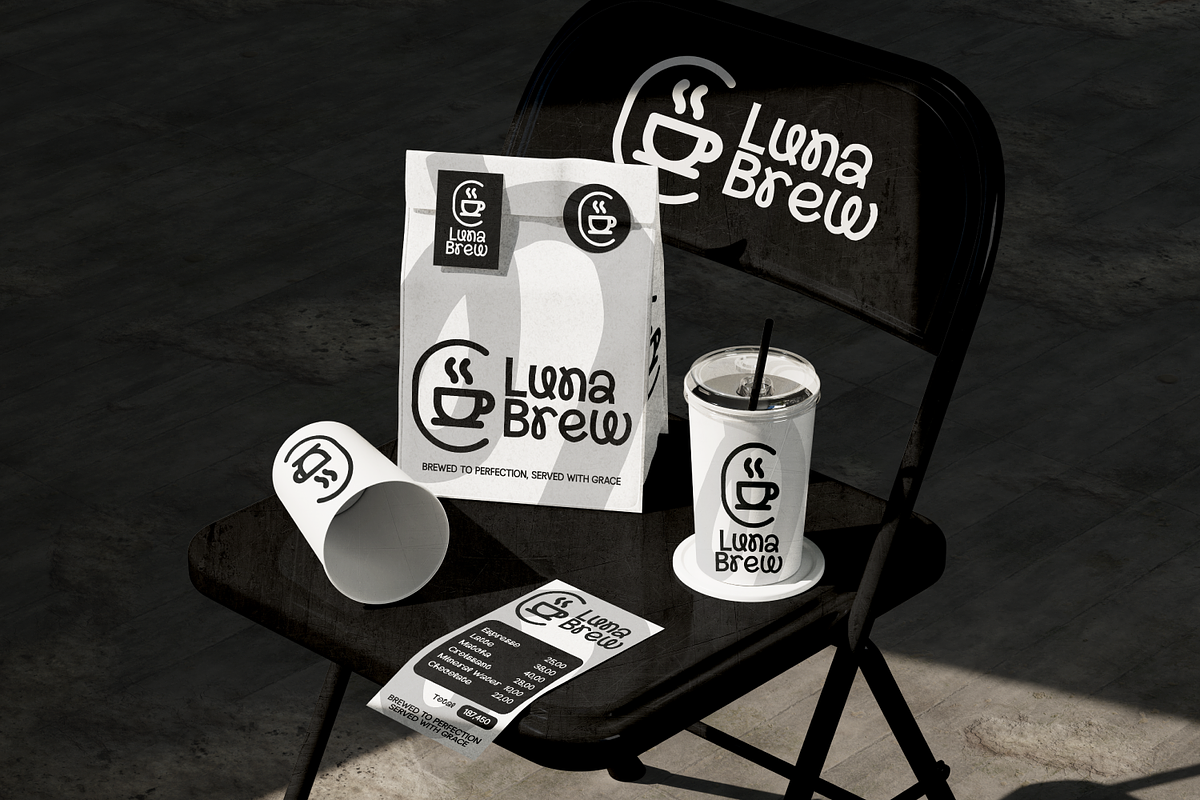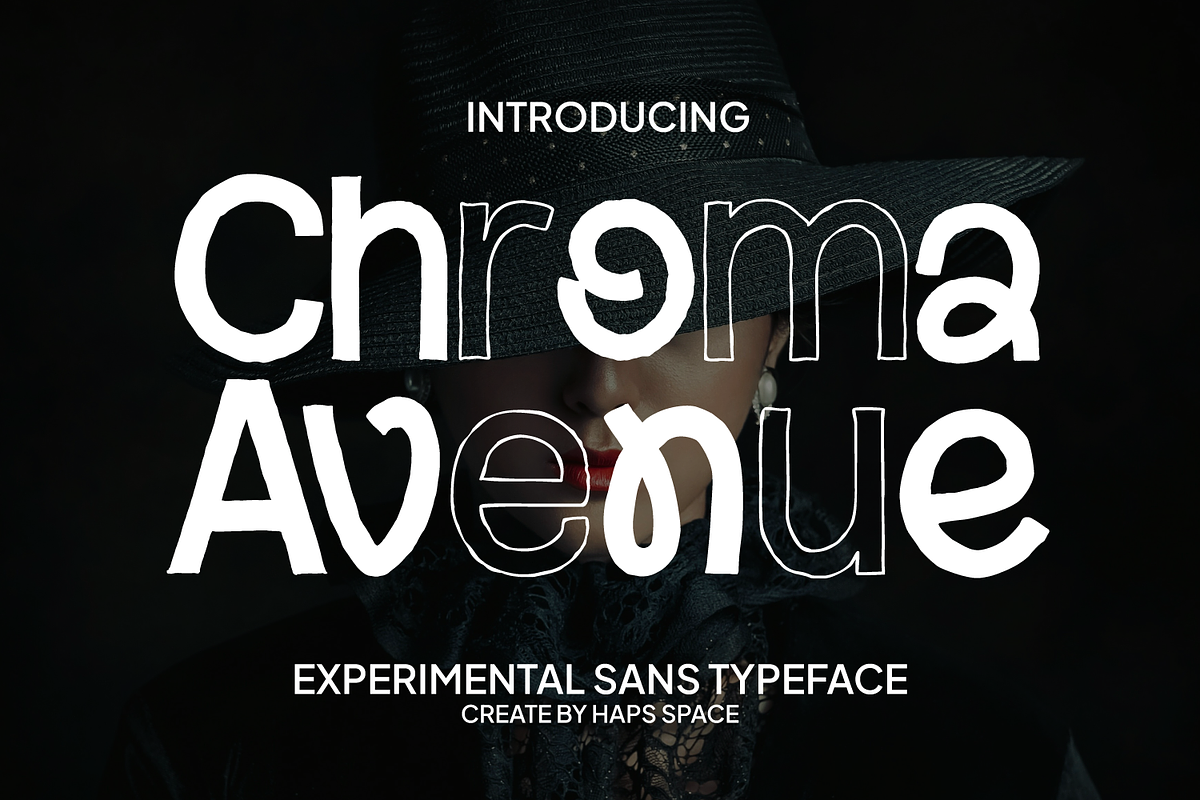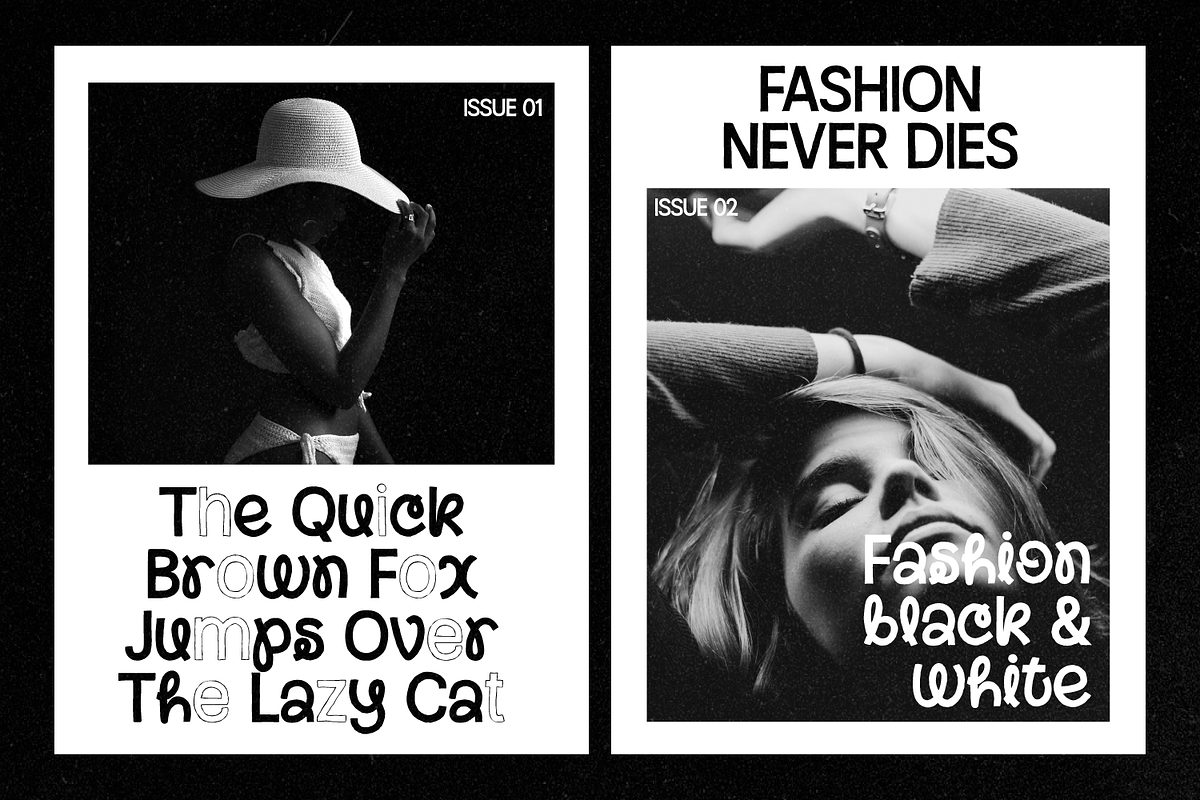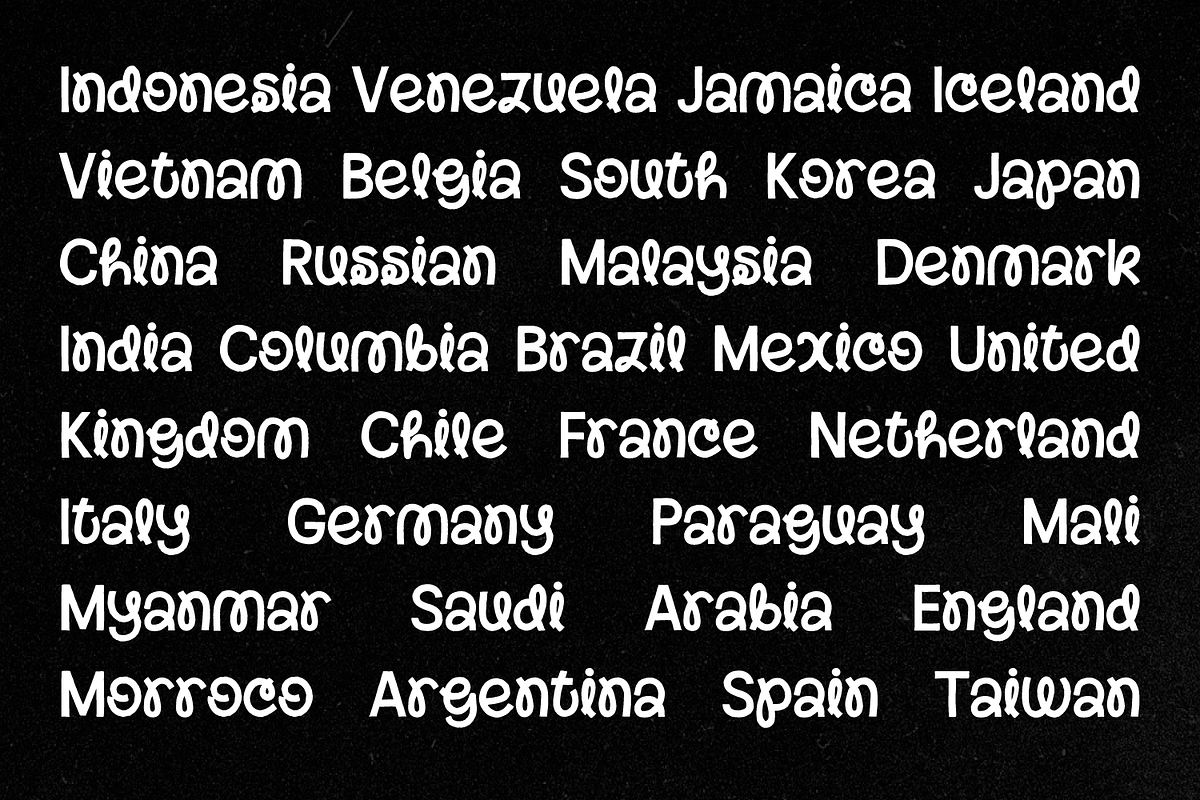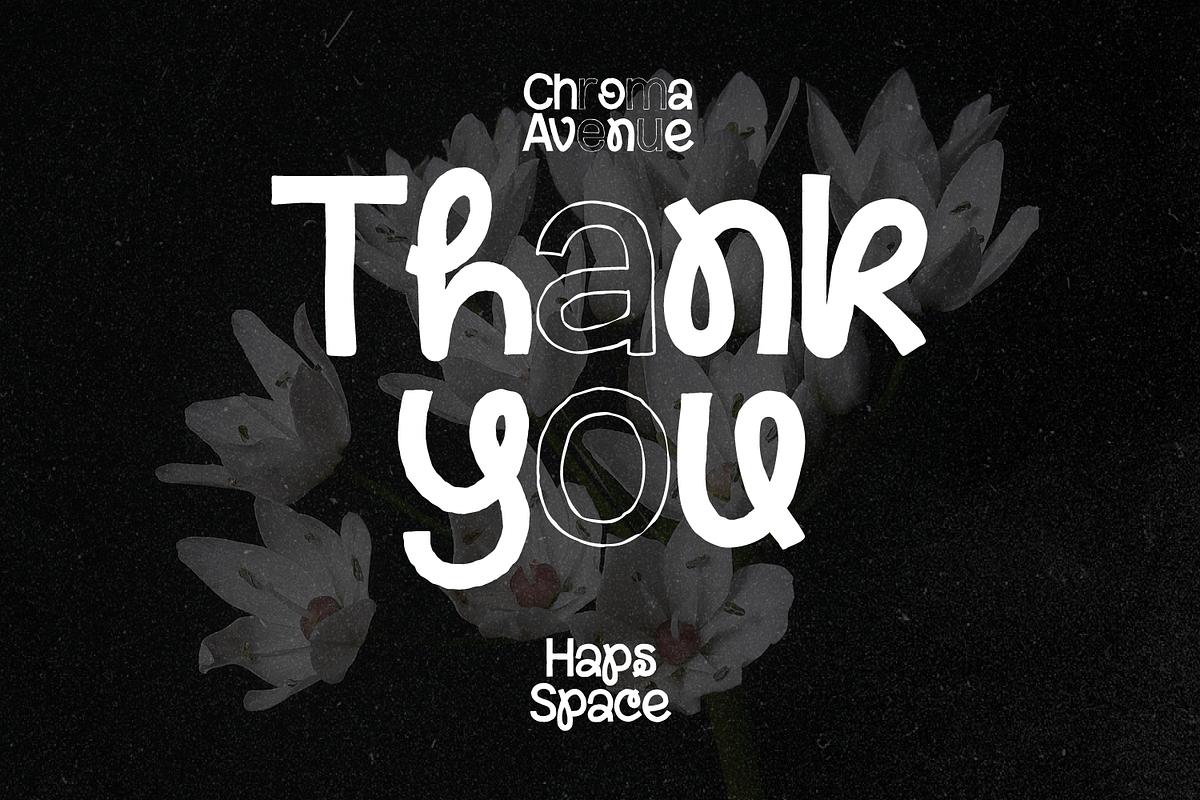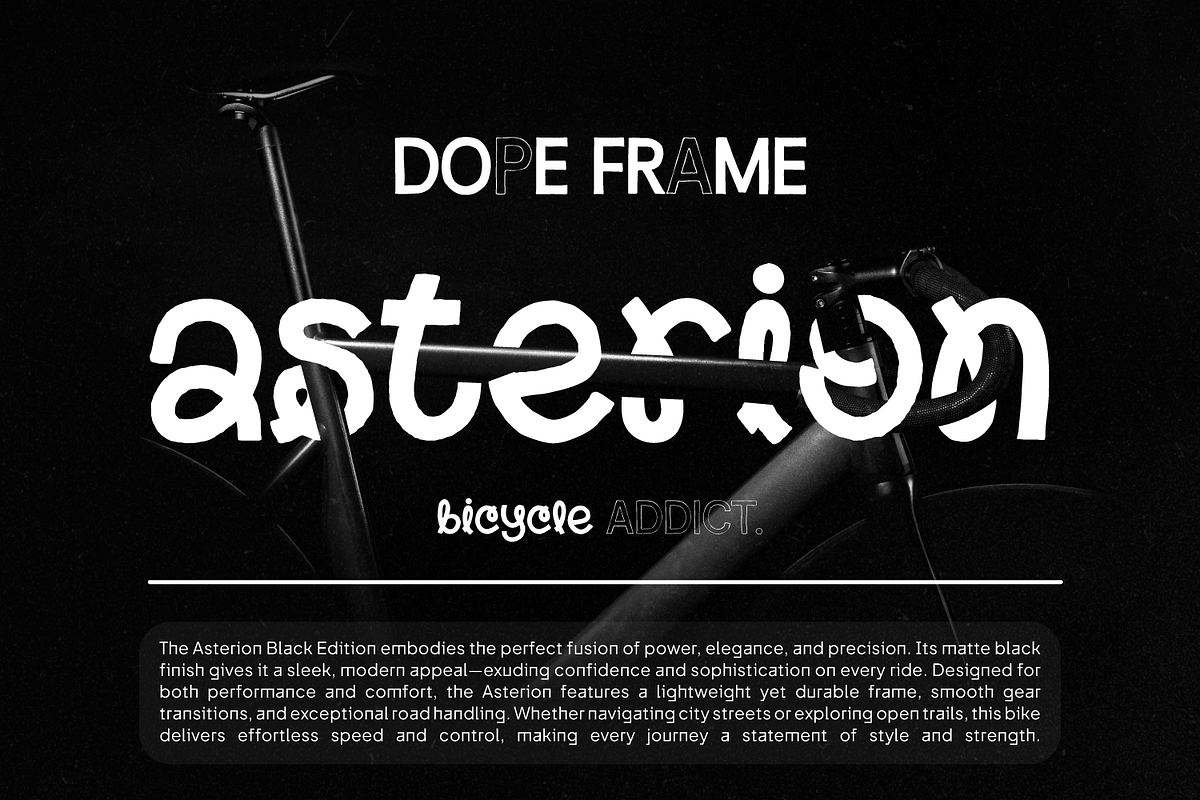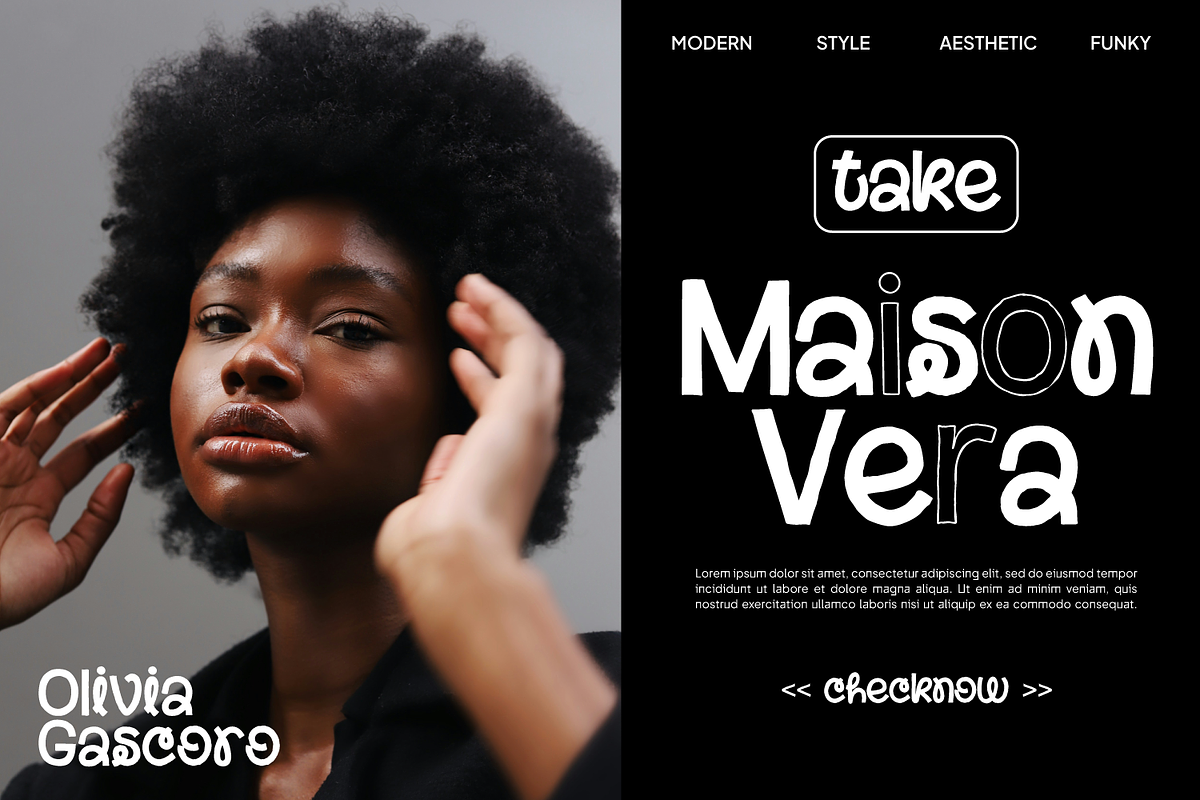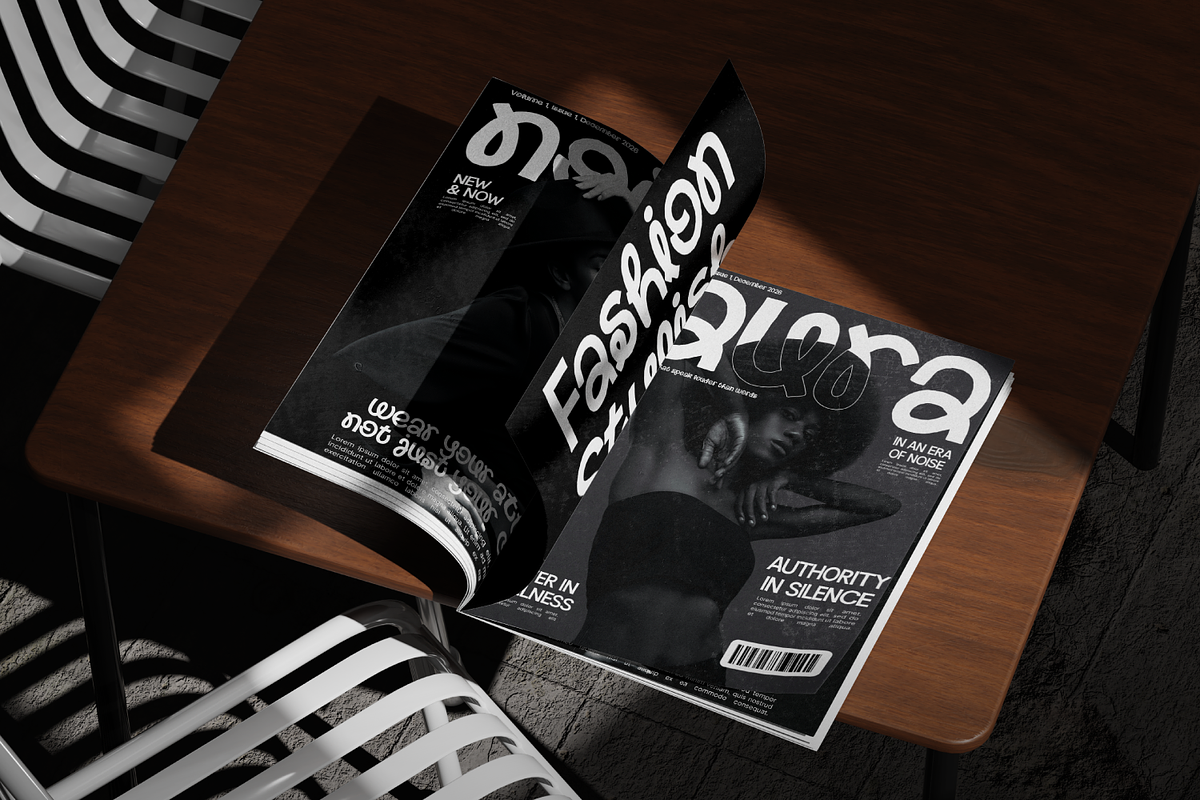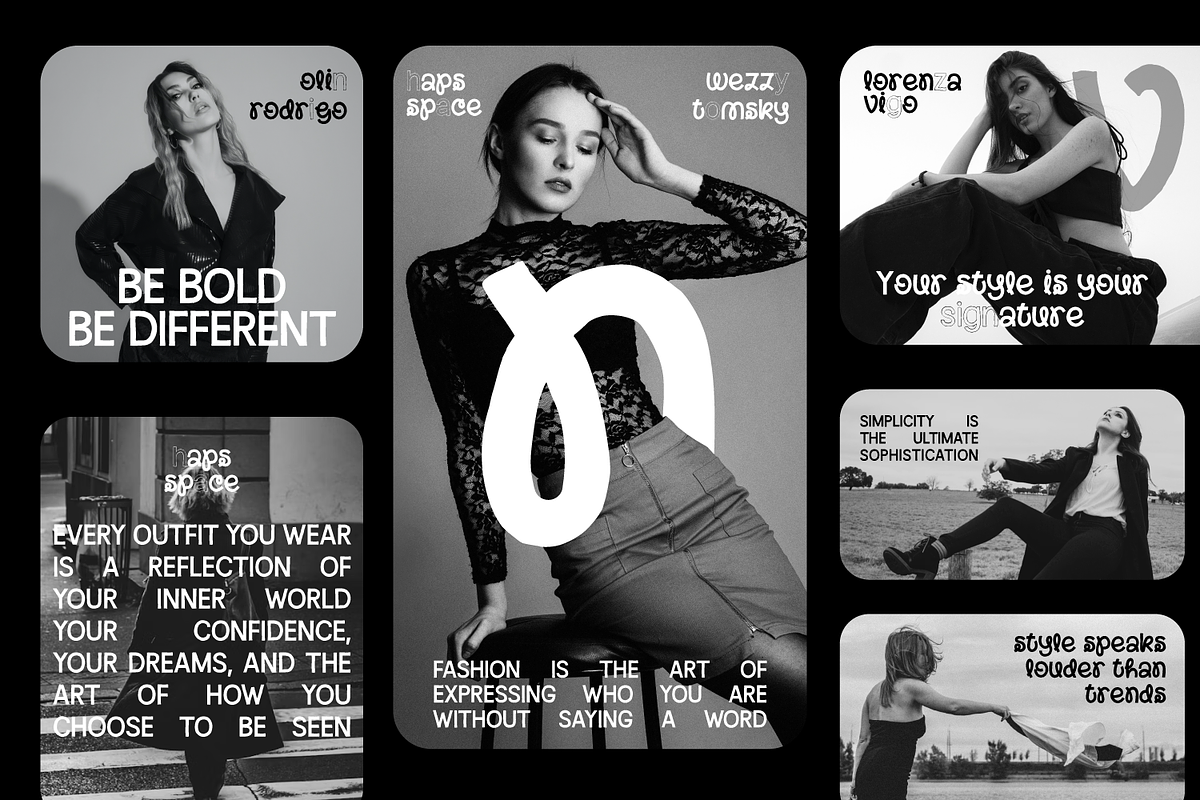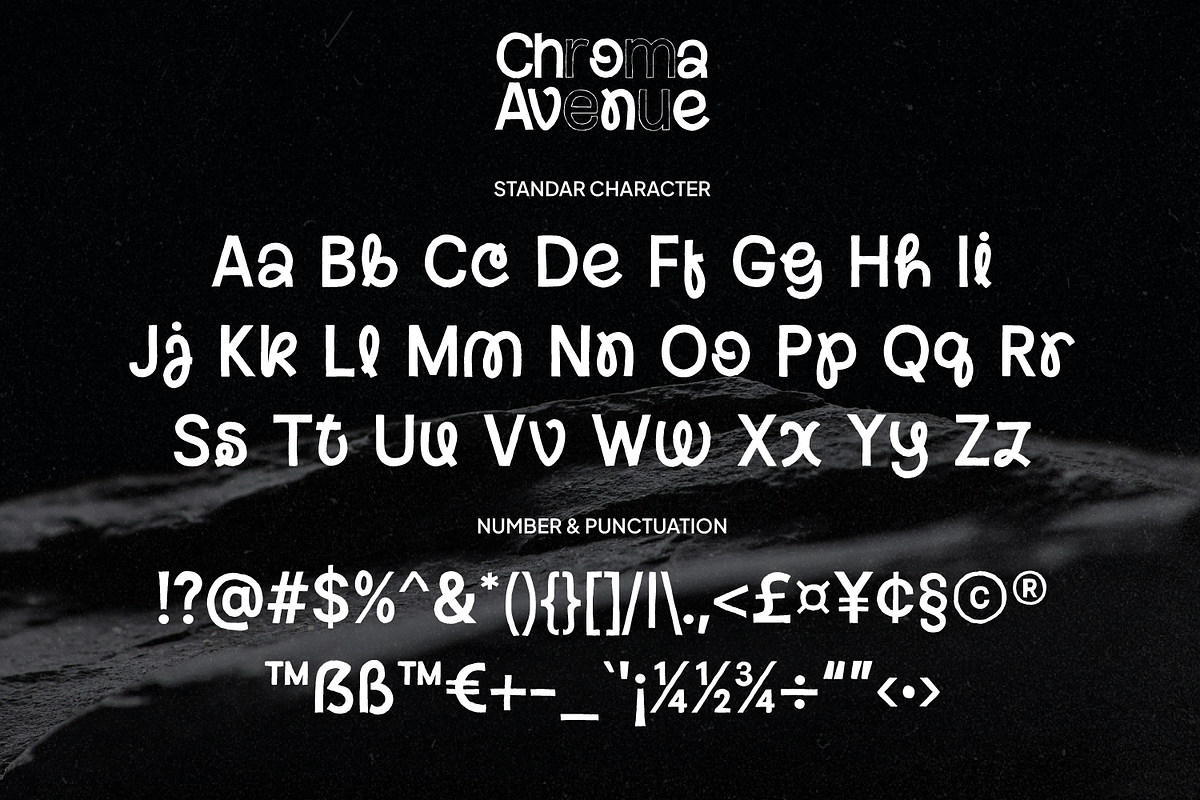
Chroma Avenue Duo Sans
Chroma Avenue is a modern experimental sans typeface designed with unique shapes and creative character forms. This font combines bold structure with artistic outlines, creating a striking and contemporary look that stands out in any design. Its distinctive style gives a fresh and expressive personality, perfect for designers who want typography that feels modern, edgy, and visually engaging.
Chroma Avenue works great for branding, posters, editorial layouts, fashion graphics, album covers, and creative design projects that require a bold experimental touch.
* Unique Letterforms